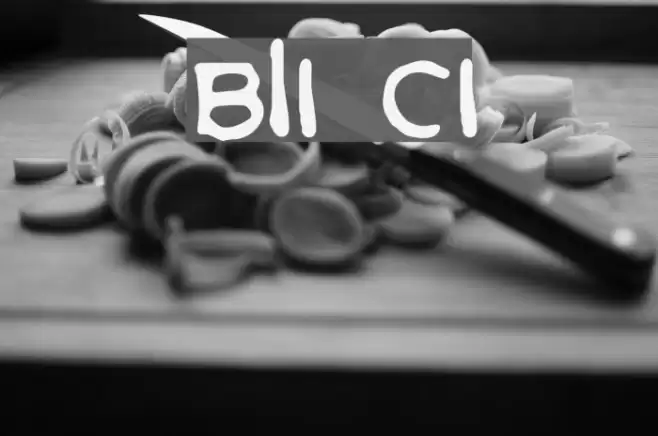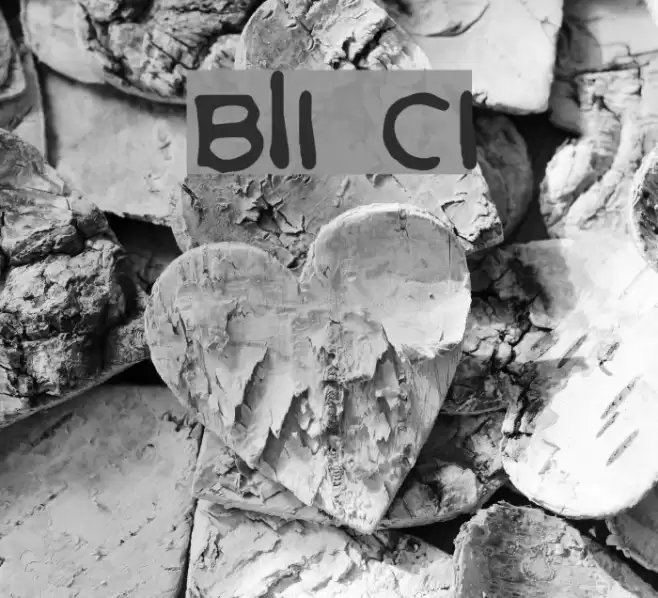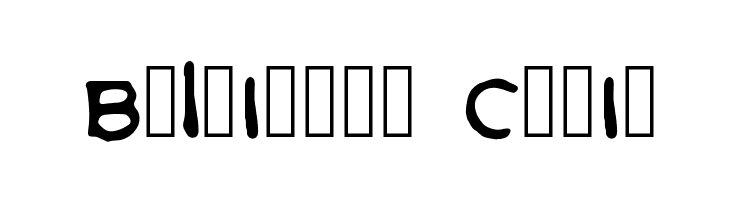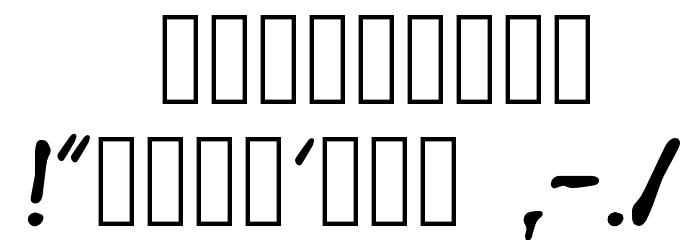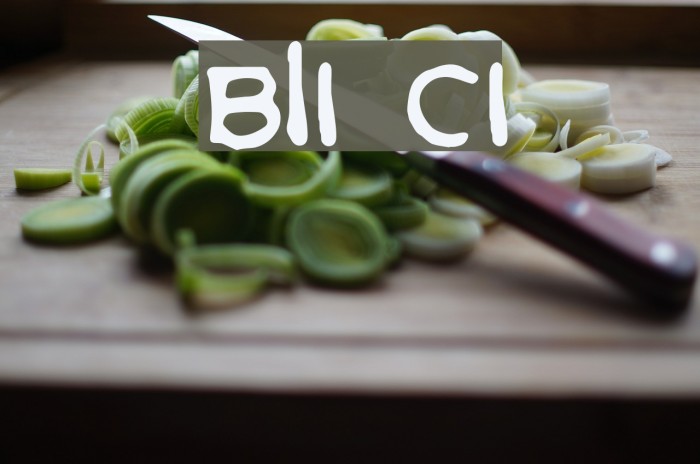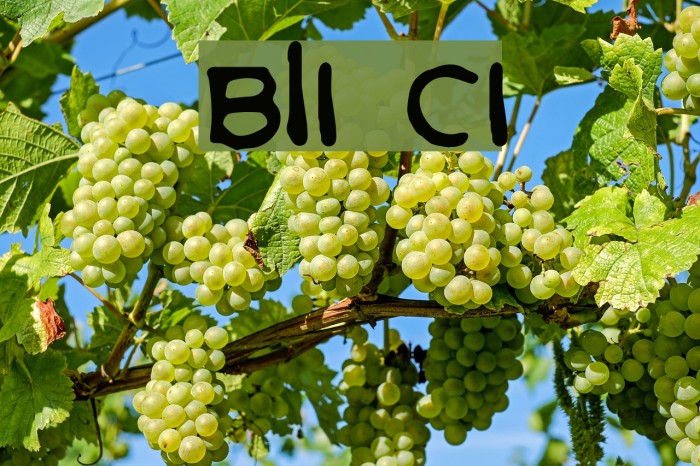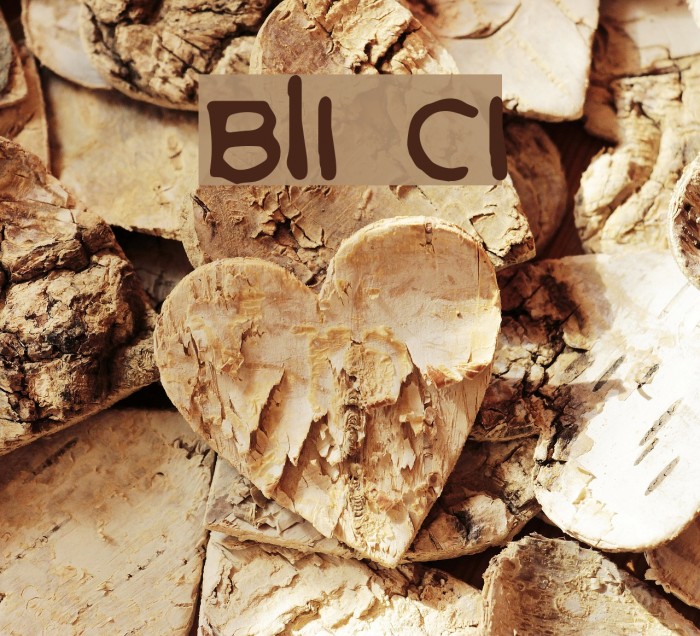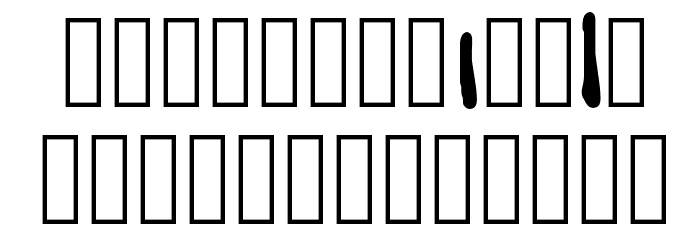
Baltimore Comic Font
Baltimore Comic Description
This playful and energetic font features a hand-drawn, comic-style appearance with bold, rounded strokes. The letters are slightly irregular, giving it a whimsical and informal feel. The uppercase characters are prominent and eye-catching, while the lowercase letters maintain a consistent style. The numbers and special characters follow the same playful design, making it suitable for creative and fun projects. Its unique style is reminiscent of comic book lettering, adding a touch of humor and lightheartedness to any text.
A playful, comic-style font with bold, rounded strokes and a hand-drawn appearance from Comic fonts.
- Proposed Projects: Ideal for comic books, children's books, playful branding, posters, and greeting cards.
- Overall Style: Playful, Comic